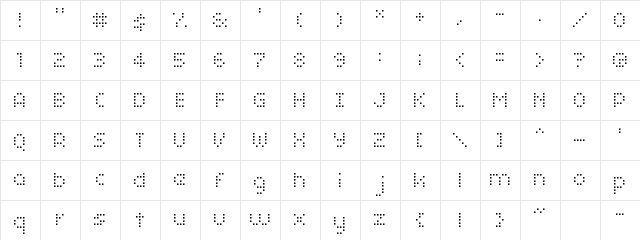
Smirnof Regular
Design Context for Smirnof Typeface
Smirnof takes a measured approach to typography — its balanced proportions and neutral character make it a reliable workhorse for both digital and print work.